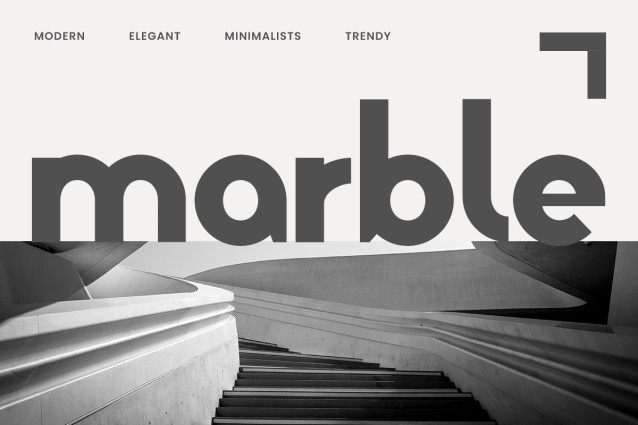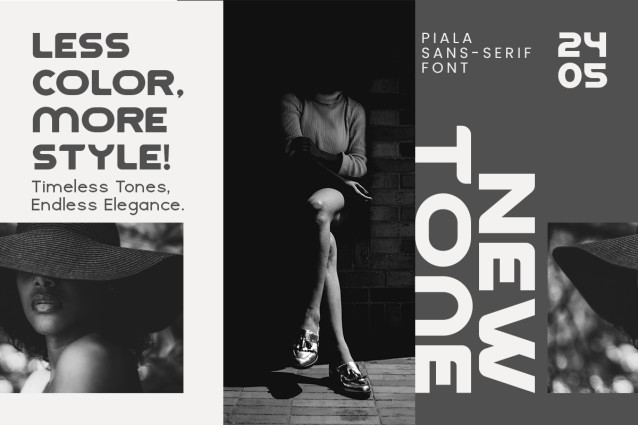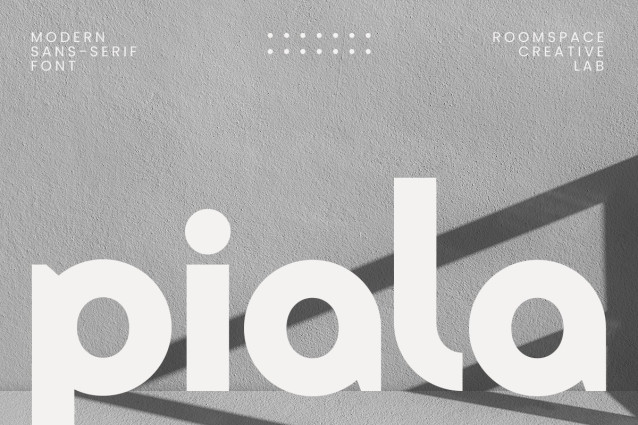
Piala Font
Piala Font is a striking sans serif font that blends modern design with clean geometric lines. Carefully crafted for balance and precision, Piala captures a fresh, contemporary look that’s perfect for branding, editorial, and digital design. Each letter is built with smooth, symmetrical shapes, creating a harmonious and readable typeface that shines across all media. Its bold presence makes it ideal for logos, headlines, and web designs, giving a professional edge to your projects.
Designed by Roomspace Creative Lab, Piala reflects versatility and creativity. This sans serif font is not only modern and stylish but also highly functional, making it a great choice for designers looking to make a statement. With a mix of unique geometric accents, Piala stands out without compromising legibility, adding a distinctive touch to everything from product packaging to social media graphics. Its consistent forms and rounded edges ensure seamless integration into any design aesthetic.